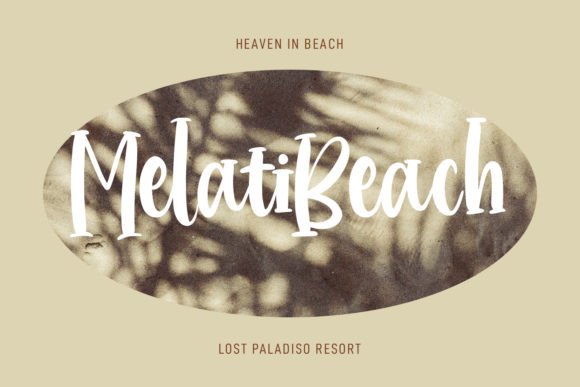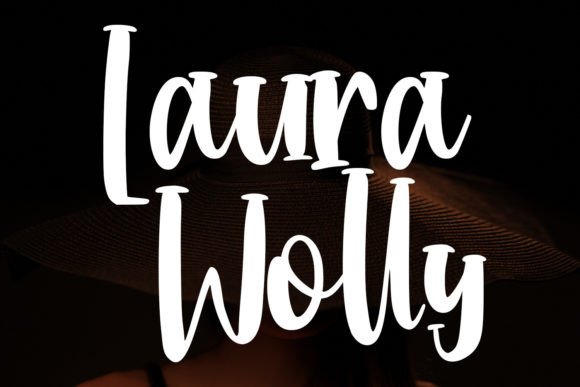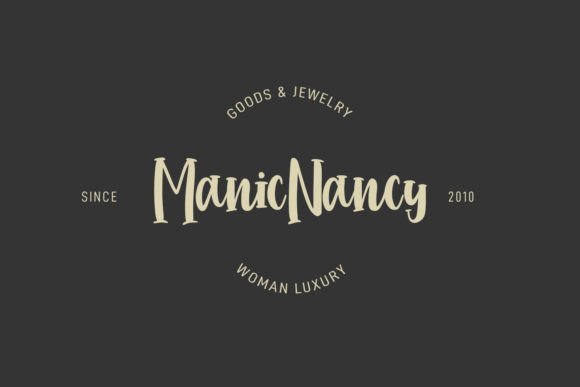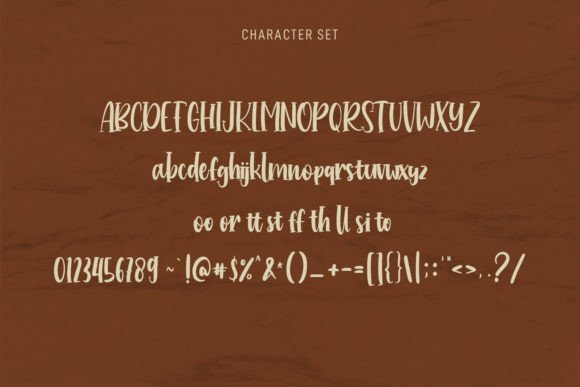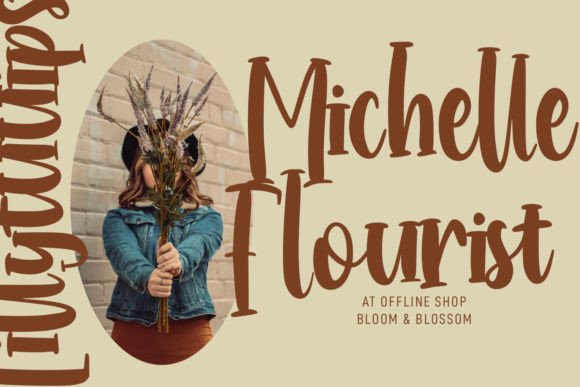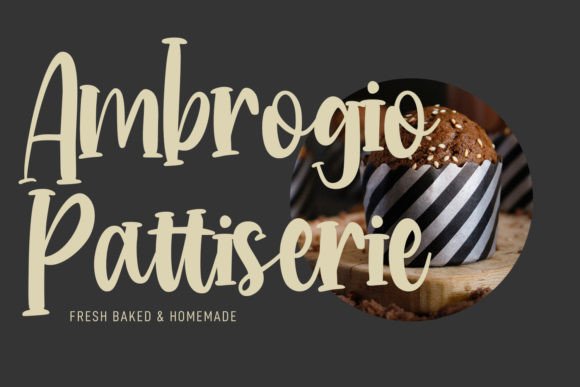
The Great Mind Font: A Quirky and Playful Addition to Your Design Arsenal
I’ll never forget the time I was working on a project for a client who wanted a font that was both stylish and playful. I had spent hours scouring the internet for the perfect font, but nothing seemed quite right. That was when I stumbled upon the Great Mind font, and it instantly became the perfect fit for the project. In this article, I’ll share my experience with this amazing font, its features, and how you can make the most of it in your designs.
A Personal Review of Great Mind Font
I’ve had the pleasure of working with the Great Mind font on several projects, and I must say, it’s been a game-changer. Here’s what I love about it:
- ✨ Unique and Quirky: The Great Mind font has a distinctive handwritten feel that’s both quirky and stylish.
- ✅ Highly Versatile: This font can be used for a wide range of projects, from branding and advertising to packaging and social media graphics.
- 💫 Excellent Legibility: Despite its playful nature, the Great Mind font remains highly legible, even at smaller sizes.
Of course, no font is perfect, and there are a few small quirks to be aware of:
- 🤔 Limited Formality: The Great Mind font is best suited for informal or creative projects. It may not be the best choice for more formal or corporate designs.
- ⚠️ Occasional Kerning Issues: As with any font, there may be occasional kerning issues, especially when using certain character combinations.
One of the standout features of the Great Mind font is its support for OpenType features and glyphs. Here are some tips for making the most of these features:
- Stylistic Alternates: Experiment with different stylistic alternates to add visual interest to your text.
- Glyphs: Use glyphs to add special characters and symbols to your text.
The Story Behind Great Mind Font
The Great Mind font was designed by a team of creatives who wanted to create a font that was both stylish and playful. Inspired by the imperfections of handwritten text, they crafted a font that’s perfect for adding a personal touch to your designs.